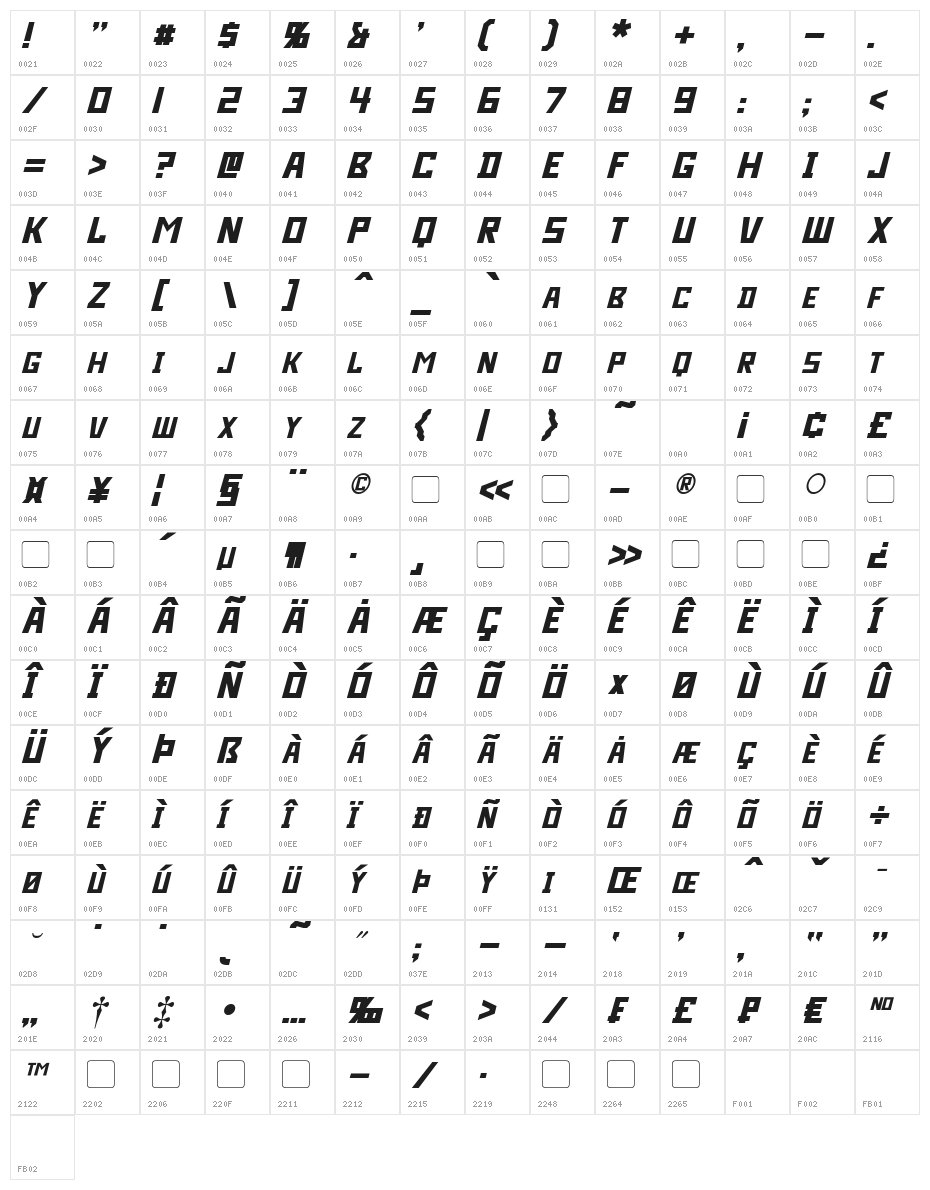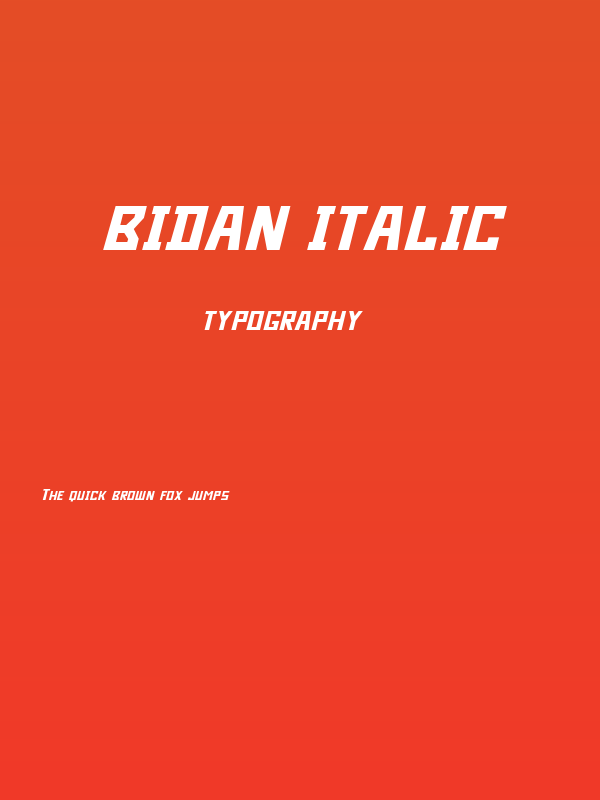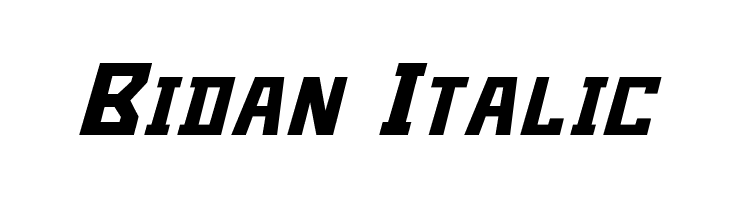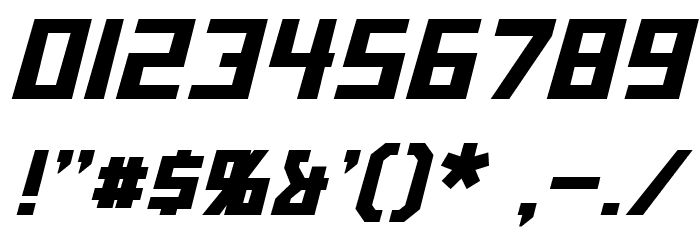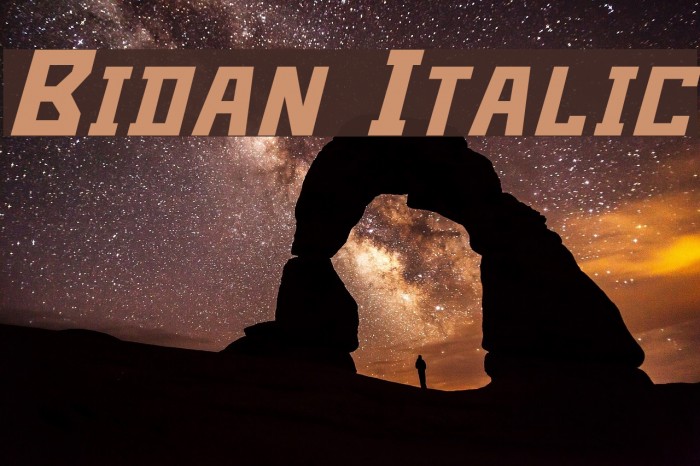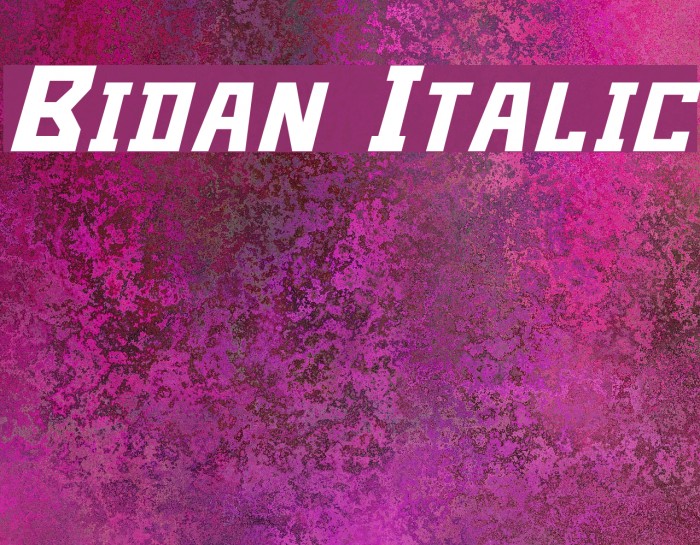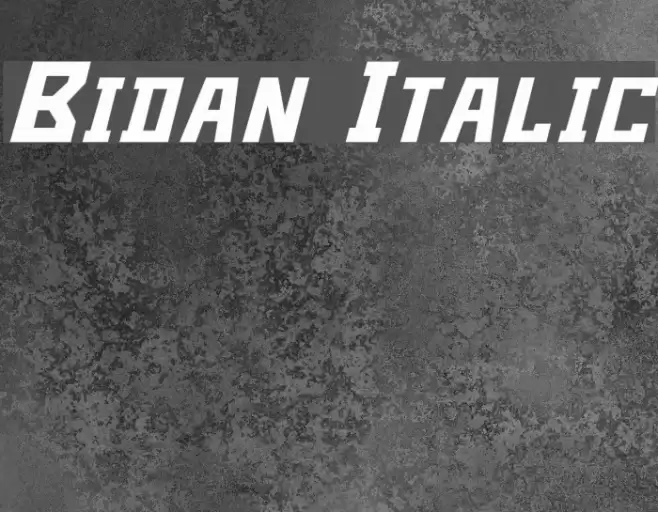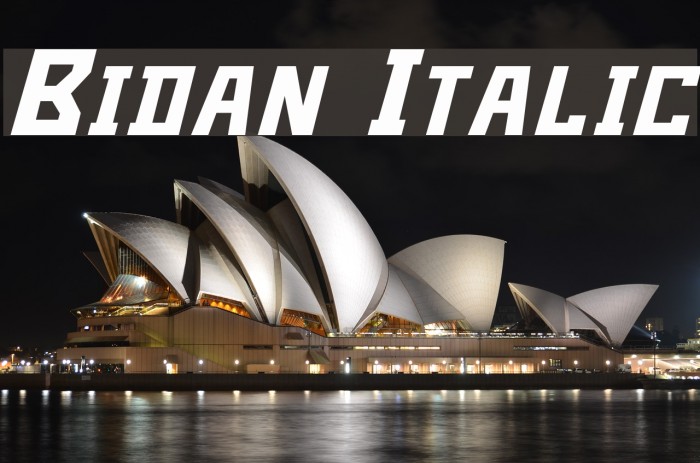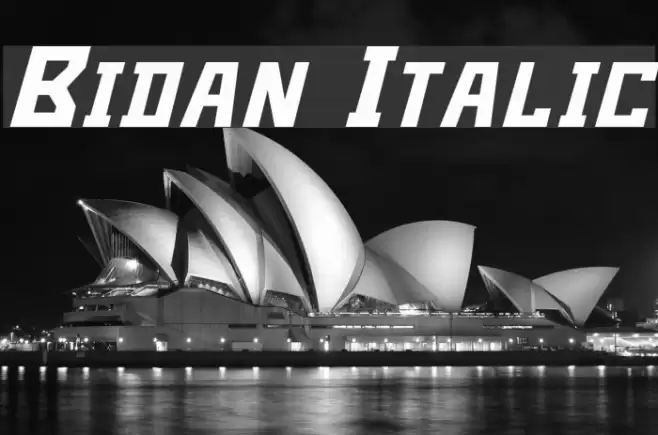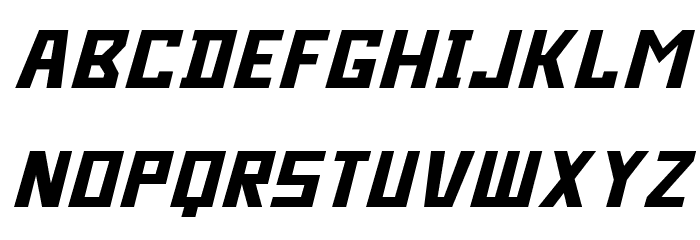
Bidan Italic Font
Bidan Italic Description
This font features a bold, italicized style with a strong geometric structure. The characters are sharply angled, giving a sense of movement and dynamism. The uppercase and lowercase letters maintain a consistent slant, enhancing the italic effect. Numbers and special characters follow the same design principles, ensuring uniformity across all glyphs. The font's bold weight and italic style make it stand out, suitable for attention-grabbing designs. Its modern, edgy appearance is ideal for projects that require a contemporary and assertive look.
| Proposed Projects | Ideal for sports branding, dynamic posters, modern logos, and edgy editorial design. |